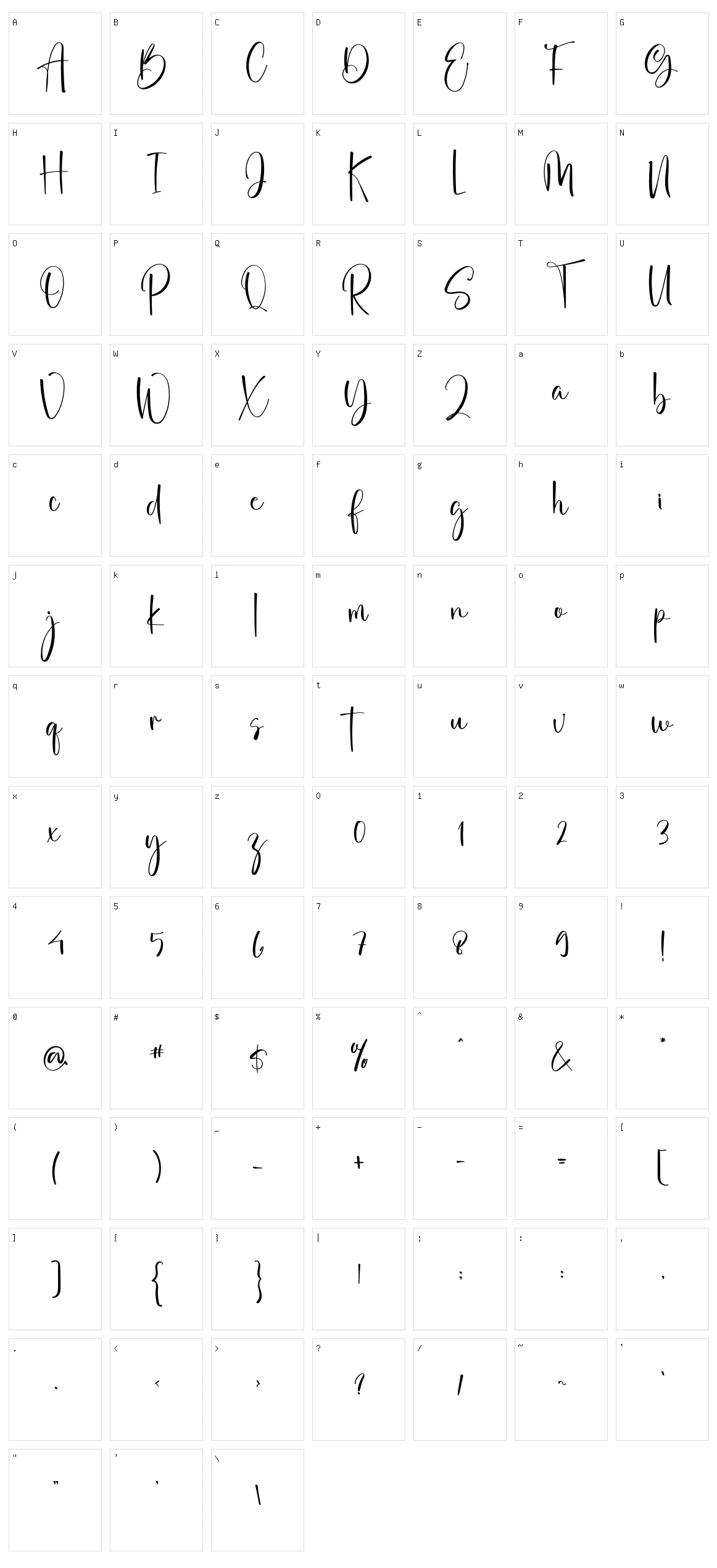
The free font Blackwhite is carefully designed by Inermedia Studio, showcasing a thoughtful balance of creativity and usability and falls under the Script font style. When you download the ZIP file, it contains only 72.73 KB of font files, making it lightweight and quick to download. Please review the license details below to understand permitted usage and distribution rights. If license information is not available, we recommend using this font for personal projects only or contacting the author directly for commercial usage permissions.